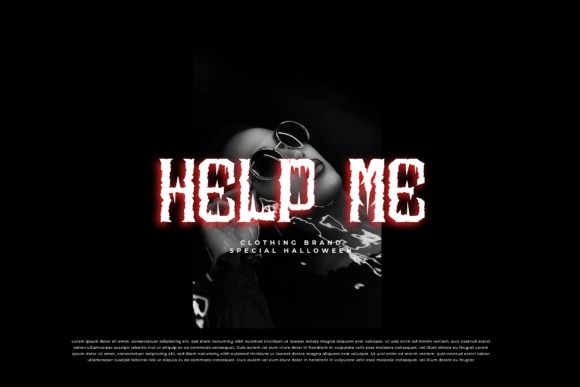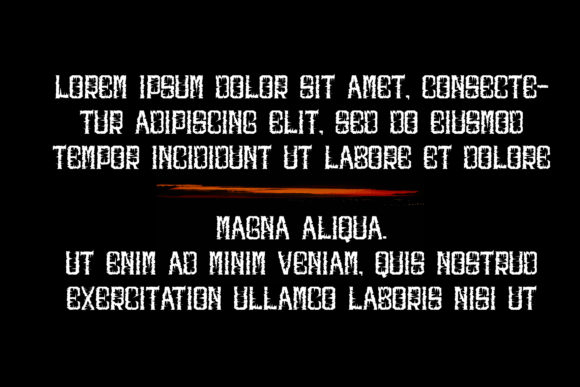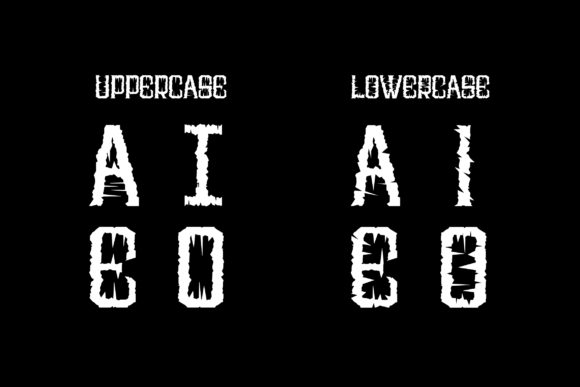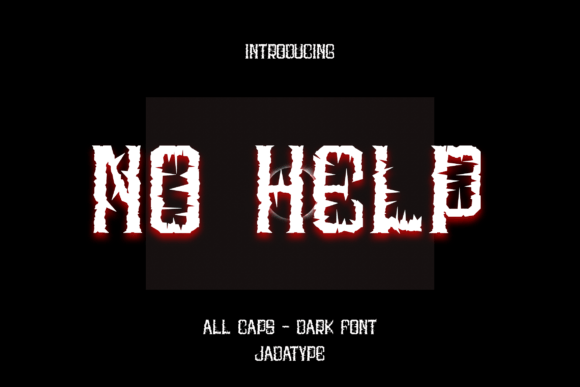
Introduction to No Help Font
No Help is an all caps display font that comes with a scary-dark-black-halloween style.
📌 Product Name No Help Font
👤 Author jadatype
suitable for tshirt, branding, social media, and so on contains standard English letters, numbers, punctuation, and several accents that support multilingualism.
Key Features of No Help Font